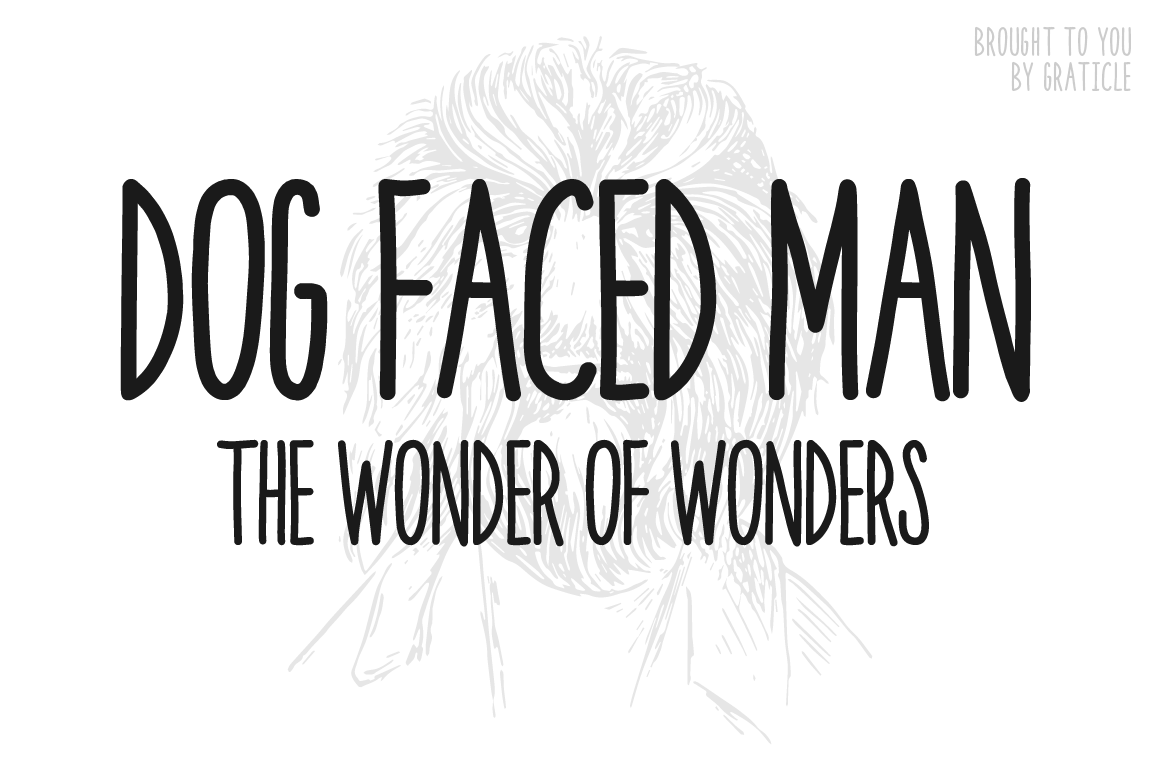
Dog Faced Man
Dog Faced Man is a display sans font family published by Graticle, Inc.
Dog Faced Man is a tall, burly, handwritten, beast of a font.
This guy comes with uppercase characters and a whole slew of symbols. Just check out the fourth image for everything that’s included in this puppy.
....so what do you think? Man… or Mutt?!